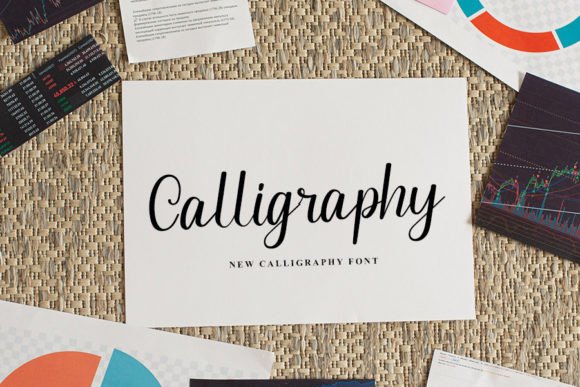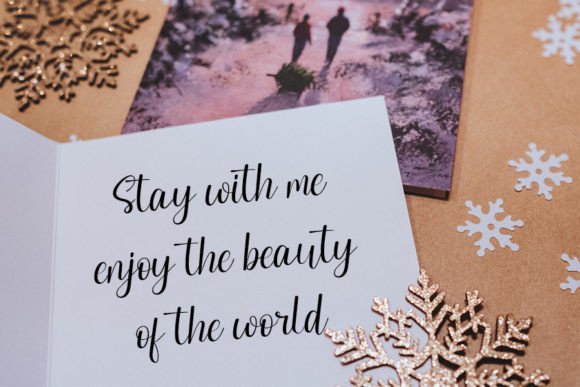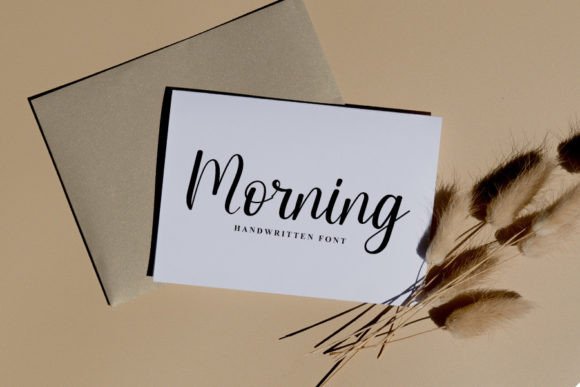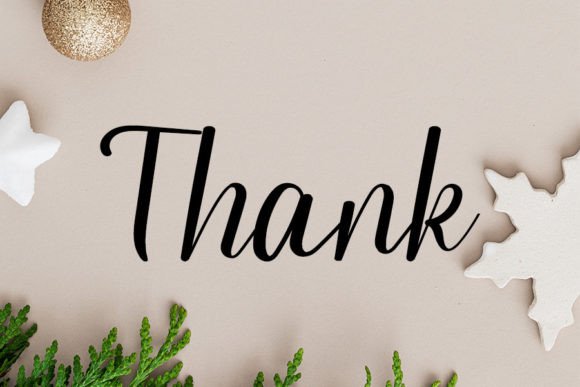
Aloha Font: Bringing Warmth to Your Designs
Remember the moment when a font choice just clicked, and your design came alive? It’s like the universe aligned, and your creative vision took shape. For designers, that moment is priceless, and it’s what makes the right font so crucial to a project’s success. If you’re looking for a font that will transport your audience to a tropical paradise, then you’re in luck!
| 👤 Author | Kongsi.Co |
The Aloha Font is a beautiful, handwritten font that exudes elegance and sophistication. With its unique and timeless style, it’s perfect for creating stunning designs that will leave a lasting impression. Whether you’re designing a wedding invitation, a logo, or a social media campaign, the Aloha Font is sure to add a touch of warmth and personality to your work.
As a valuable addition to any designer’s toolkit, the Aloha Font is a must-have for anyone looking to add some flair to their projects. Its versatility and distinctiveness make it a great choice for a wide range of designs, from casual to formal, and everything in between.
Aloha Font Key Features
- Unique Characteristics: This font features a unique blend of traditional Hawaiian and modern design elements, creating a distinctive and eye-catching visual identity.
Aloha Font Review
Overall, I have mixed feelings about the Aloha Font. Here’s a breakdown of what I like and what could be improved.
- Unique design: The Aloha Font has a distinctive, tropical vibe that can add a touch of personality to any design project.
- Variety of weights: The font comes in multiple weights, from light to bold, giving designers flexibility to choose the right fit for their project.
- Legibility: Despite its decorative nature, the Aloha Font is relatively easy to read, even at smaller sizes.
- Limited language support: The Aloha Font may not be suitable for projects that require a wide range of languages, as it’s primarily designed for English and other Latin-based scripts.
- Not ideal for small text: While the font is legible at larger sizes, it can become difficult to read at smaller sizes, making it less suitable for body text or captions.
Overall, the Aloha Font is a great choice for designers looking to add a touch of whimsy to their projects, but it may not be the best fit for every project. With its unique design and variety of weights, it’s perfect for titles, headings, and other display text. However, its limitations make it less suitable for body text or projects that require a wide range of languages.
The Aloha font is perfect for creating a tropical and relaxed atmosphere in your designs. Use it for:
- Summer-themed graphics and invitations.
- Beach-inspired logos and branding materials.
- Travel and adventure-related projects.
Remember to experiment with different font weights and styles to achieve the desired effect.